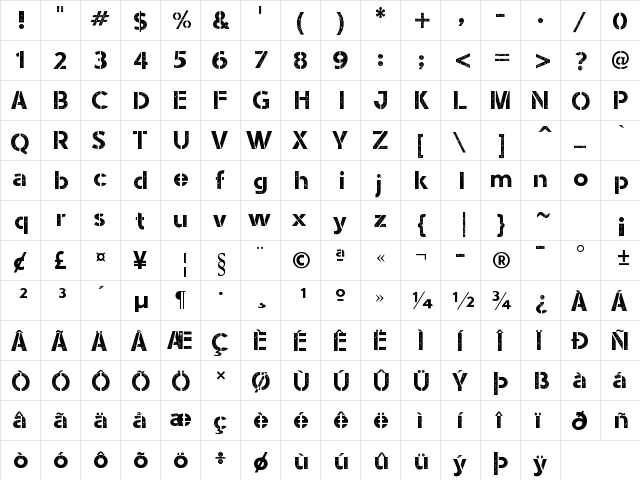
Stencil Army WW I Regular
Design Context for Stencil Army WW I Typeface
Stencil Army WW I draws on military and industrial lettering traditions, with forms that communicate strength and precision.
Designed for tactical branding, military-inspired apparel, action game UI, and utility-focused signage.
Font Pairing: Use alongside a condensed or geometric sans for supporting copy — keep the pairing bold, functional, and free of ornament.
Pro Tip: Use Stencil Army WW I at medium-to-large sizes where its utilitarian structure can be appreciated — the character detail gets lost at small sizes.